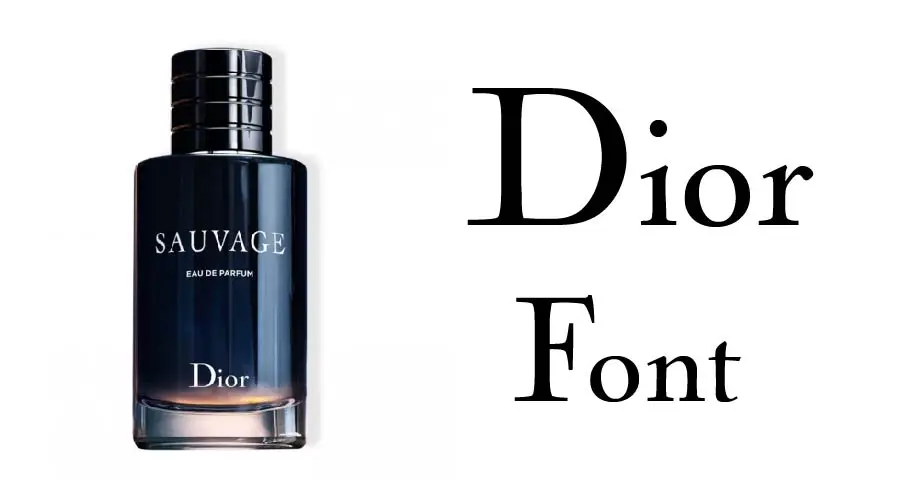
Are you looking for Dior font? Then you’ve come to the right place! Well, there are countless fonts out there today, but we only found two fonts matching the Dior logo. They probably used the Nicolas Cochin EF Regular font to create the logo. It is a font from the Nicolas Cochin font family, which Charles-Nicolas Cochin and Georges Peignot created in 1912. It is a commercial font, so you have to buy it first.
However, you can use the OPTI Naval Regular font as a similar free alternative. It is part of the OPTI font family created by Castcraft Software Inc. in 1990–1991. You can download and use it for free.
In summary, the Dior font is likely Nicolas Cochin EF Regular, a paid font from 1912. A free alternative is OPTI Naval Regular, from 1990.